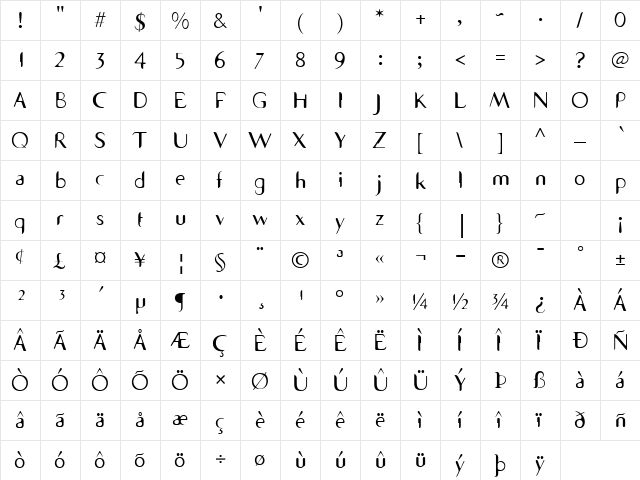
Seven Sans ICG
Design Context for Seven Sans Typeface
Seven Sans is a composed and adaptable typeface that performs quietly and consistently across a wide range of design contexts.
Pro Tip: Pair Seven Sans with a font of contrasting weight or personality to build a more expressive typographic hierarchy.